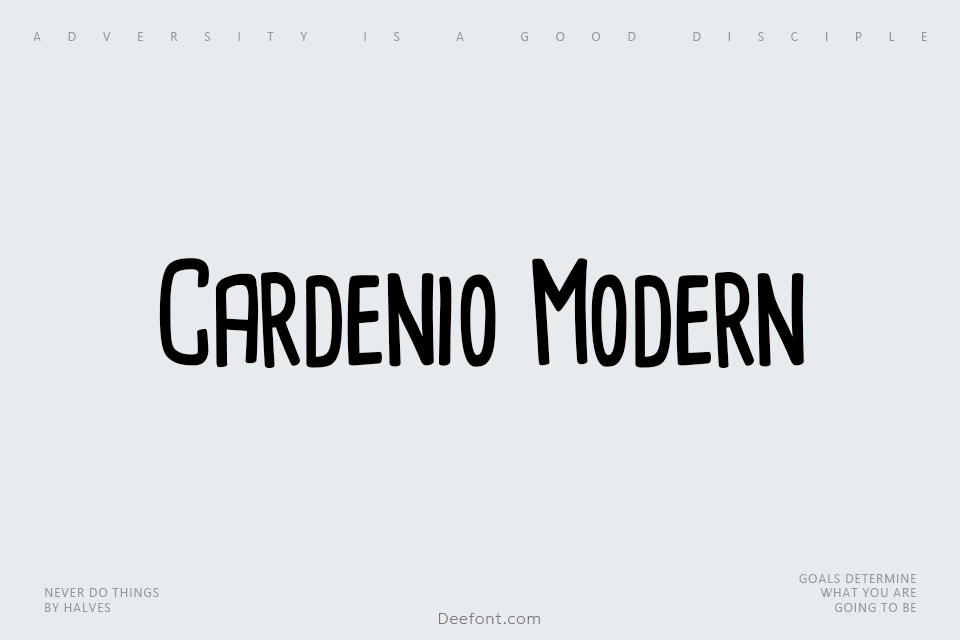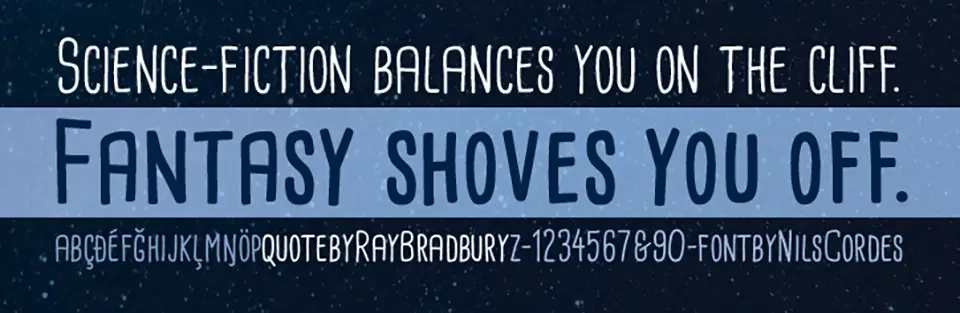
Cardenio Modern Font
Cardenio Modern is an elegant handwritten typeface with uppercase and lowercase capitals, designed specifically for quotes, notes, and meaningful typography. This versatile script font combines natural handwriting aesthetics with refined letterforms, offering 378 glyphs with extensive Latin-based European language support. Since its release in 2013, it has become a classic choice for designers and major brands including Fiat, IKEA, and the Kennerspiel des Jahres 2019 winner Wingspan, with over 445,000 downloads.